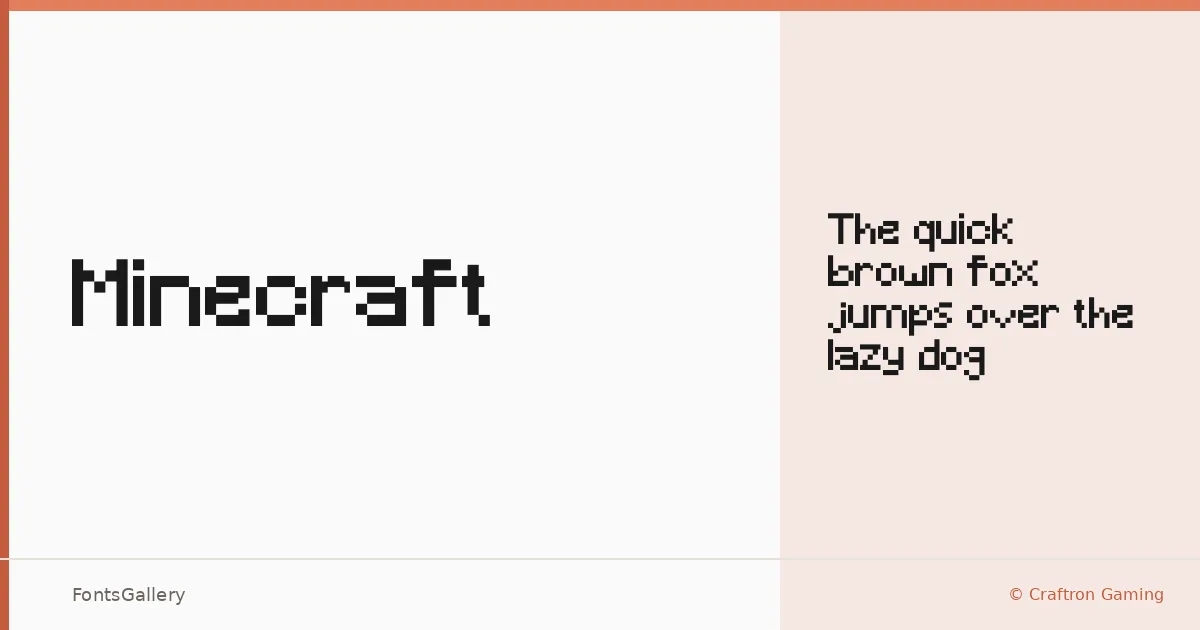
About Minecraft Font
There is something immediately recognizable about letterforms built entirely from hard right angles — no curves, no compromise, just a pixel-grid logic translated into outline form. Craftron Gaming has distilled that blocky, game-world aesthetic into a single display face that carries the weight of a cultural shorthand. Every character lands with the same chunky confidence you would expect from the source material.
This is a display typeface in the truest sense: bold by nature, modern in its geometric rigidity, and deliberately playful in the way each squared-off glyph stacks and sits. The family ships as a single Medium weight in TTF format, which keeps things focused — this is not a workhorse text face but a statement-making headline cut. The uniformity of stroke width and the absence of any diagonal softness give it an almost modular quality, as if each letter were assembled from the same set of rectangular blocks.
It earns its keep in branding, logo work, poster headlines, social media graphics, and T-shirt design — any context where the image needs to arrive before the reader even consciously processes the words. For contrast, pair it alongside the clean neutrality of Helvetica or the structured forms of Alexandria to let the display character breathe without visual chaos. If you want to stay within a more stylized register, Aresink, Bizantheum, and Audex all sit comfortably in the same design space.